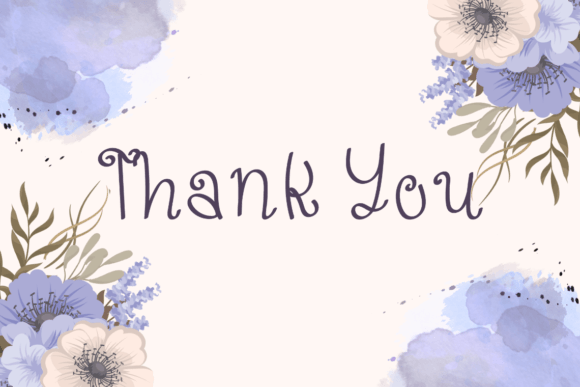
Introducing Graduation Classroom Font: A Charming Handwritten Style for Educational and Celebratory Designs
When it comes to creating visually appealing graphics for educational or celebratory purposes, the right font can make all the difference. Graduation Classroom Font is a beautifully designed handwritten font that is specifically tailored for educational and school-themed graphics. Its versatility and charm make it an ideal choice for a wide range of design projects, from invitations and posters to greeting cards, lettering, and more.
A Versatile Alphabet Design for Various Occasions
The Graduation Classroom Font features a unique and versatile alphabet design that suits various occasions, including holidays, birthdays, and celebratory events like graduation. Its charming style adds a personalized touch to any design project, making it perfect for:
- Invitations: Create custom invitations for graduations, birthday parties, and other celebrations with a personal touch.
- Posters: Design eye-catching posters for educational events, school fairs, and community gatherings.
- Greeting Cards: Add a touch of warmth and personality to your greeting cards for special occasions.
- Lettering: Use Graduation Classroom Font for lettering projects, such as quotes, phrases, and titles.
Beyond Educational Graphics: Exploring Other Design Possibilities
While Graduation Classroom Font is specifically designed for educational and school-themed graphics, its versatility extends far beyond. You can use this font for:
- Logo Design: Create custom logos for businesses, organizations, or personal projects with a unique and charming touch.
- Art Projects: Add a creative element to your art projects, such as illustrations, paintings, or digital art.
- Advertisements: Use Graduation Classroom Font in advertisements, flyers, and brochures to add a touch of personality.
- Headers and Titles: Add a decorative element to your website, blog, or social media graphics with custom headers and titles.
The Benefits of Using Graduation Classroom Font
So, what makes Graduation Classroom Font an ideal choice for designers and creatives? Here are some benefits of using this font:
- Unique and Charming Style: Graduation Classroom Font features a distinctive and charming style that adds a personal touch to any design project.
- Versatility: This font is suitable for a wide range of design projects, from educational graphics to celebratory designs.
- Easy to Read: The font is designed to be easy to read, making it perfect for body text, titles, and headings.
- Customizable: You can customize the font to fit your design needs, adjusting the size, color, and style to suit your project.
Tips for Using Graduation Classroom Font Effectively
To get the most out of Graduation Classroom Font, here are some tips for using it effectively:
- Pair with Other Fonts: Combine Graduation Classroom Font with other fonts to create a unique and visually appealing design.
- Experiment with Colors: Try out different colors and color combinations to add depth and interest to your design.
- Use for Headlines and Titles: Use Graduation Classroom Font for headlines and titles to add a decorative element to your design.
- Keep it Simple: Don’t overcomplicate your design – keep it simple and clean to let the font shine.
Graduation Classroom Font is a beautifully designed handwritten font that is perfect for educational and celebratory designs. Its versatility, charm, and ease of use make it an ideal choice for designers and creatives. Whether you’re designing invitations, posters, greeting cards, or lettering for different projects, Graduation Classroom Font adds a personalized touch to your creations. With its charming style, Graduation Classroom brings warmth and creativity to any design endeavor.